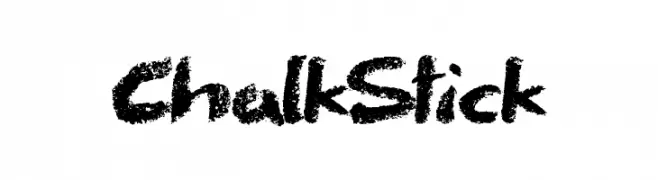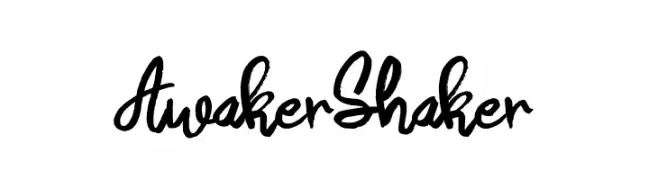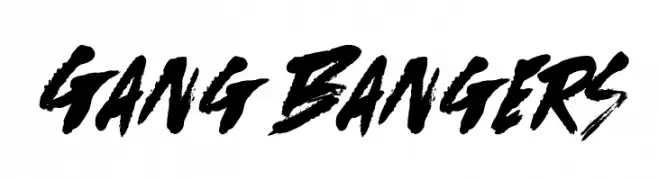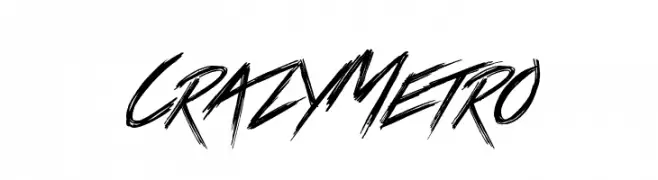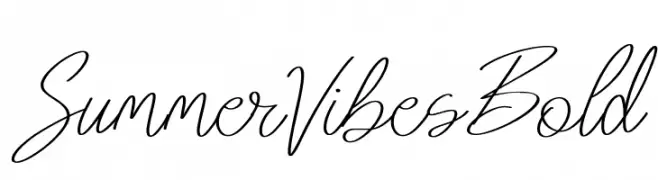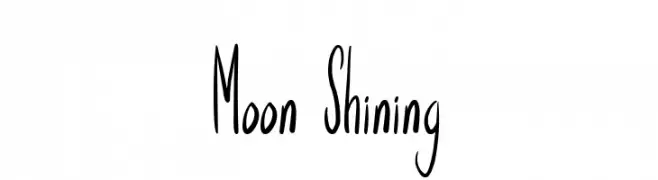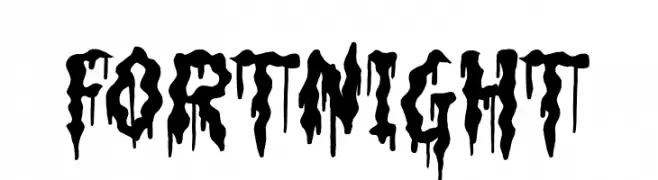
A textured, chalk-like font with a playful, hand-drawn style.
A bold, brush-like font with sharp, angular strokes and a dynamic, edgy style.
A bold, edgy font with sharp, jagged edges and a rebellious, grunge-like style.
A bold, cursive script font with fluid strokes and high contrast.
A bold, brush-stroke style font with an expressive and artistic appearance.
A bold, brush-style font with dynamic, edgy strokes.
A dynamic, brush-style font with bold, angular strokes.
A lively, cursive script font with smooth, flowing strokes.
A whimsical, handwritten font with tall, narrow uppercase and rounded lowercase letters.
A bold, dripping font with a spooky, liquid-like appearance.